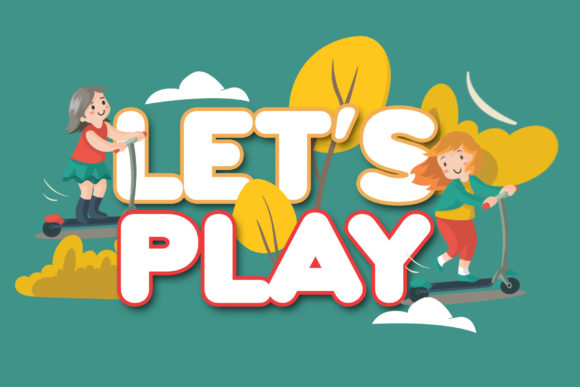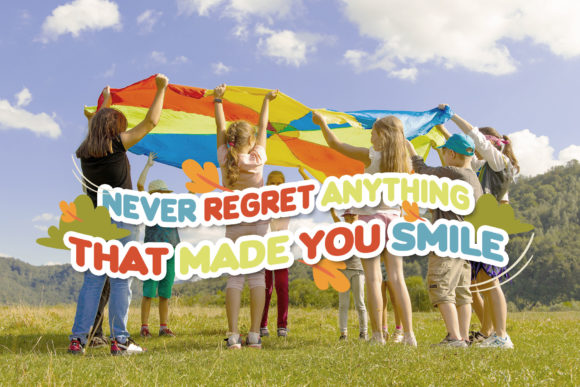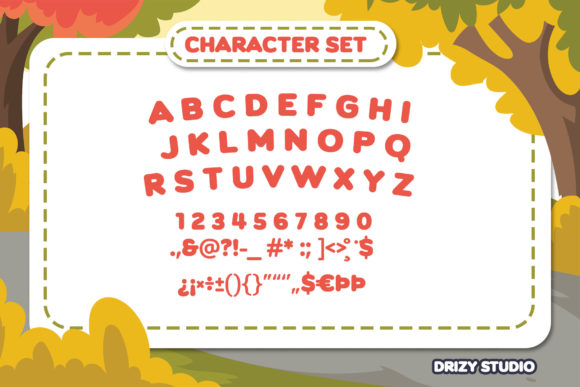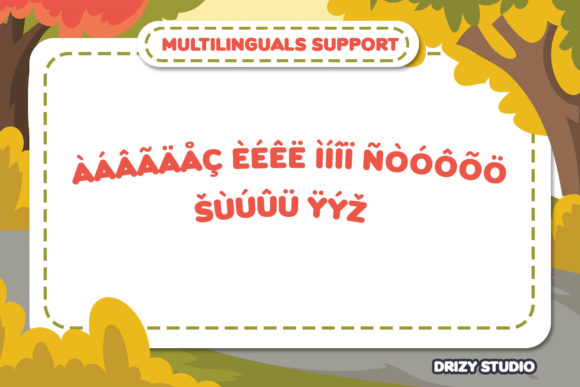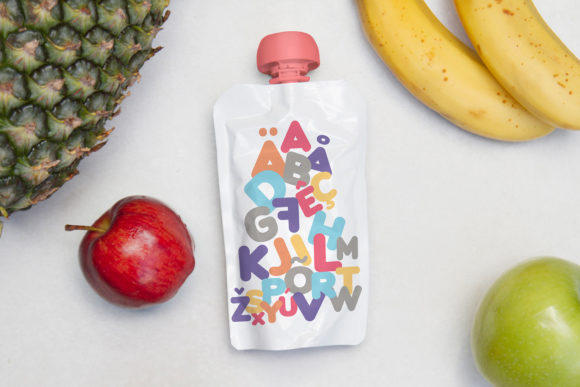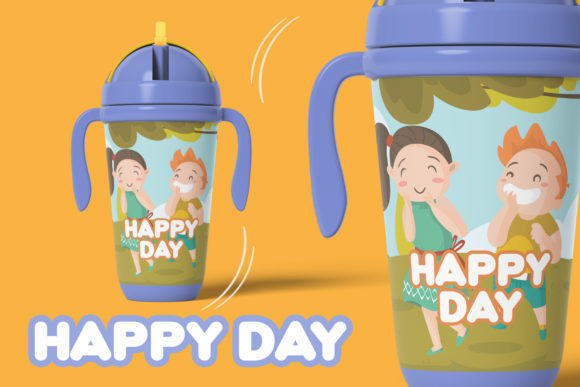
Introduction to Kidmo Font
Kidmo is a cute and colorful display font.
It embodies playfulness and authenticity and is the perfect choice for any children’s activity or school project Add this chunky lettered font to your designs and notice how it makes them come alive.